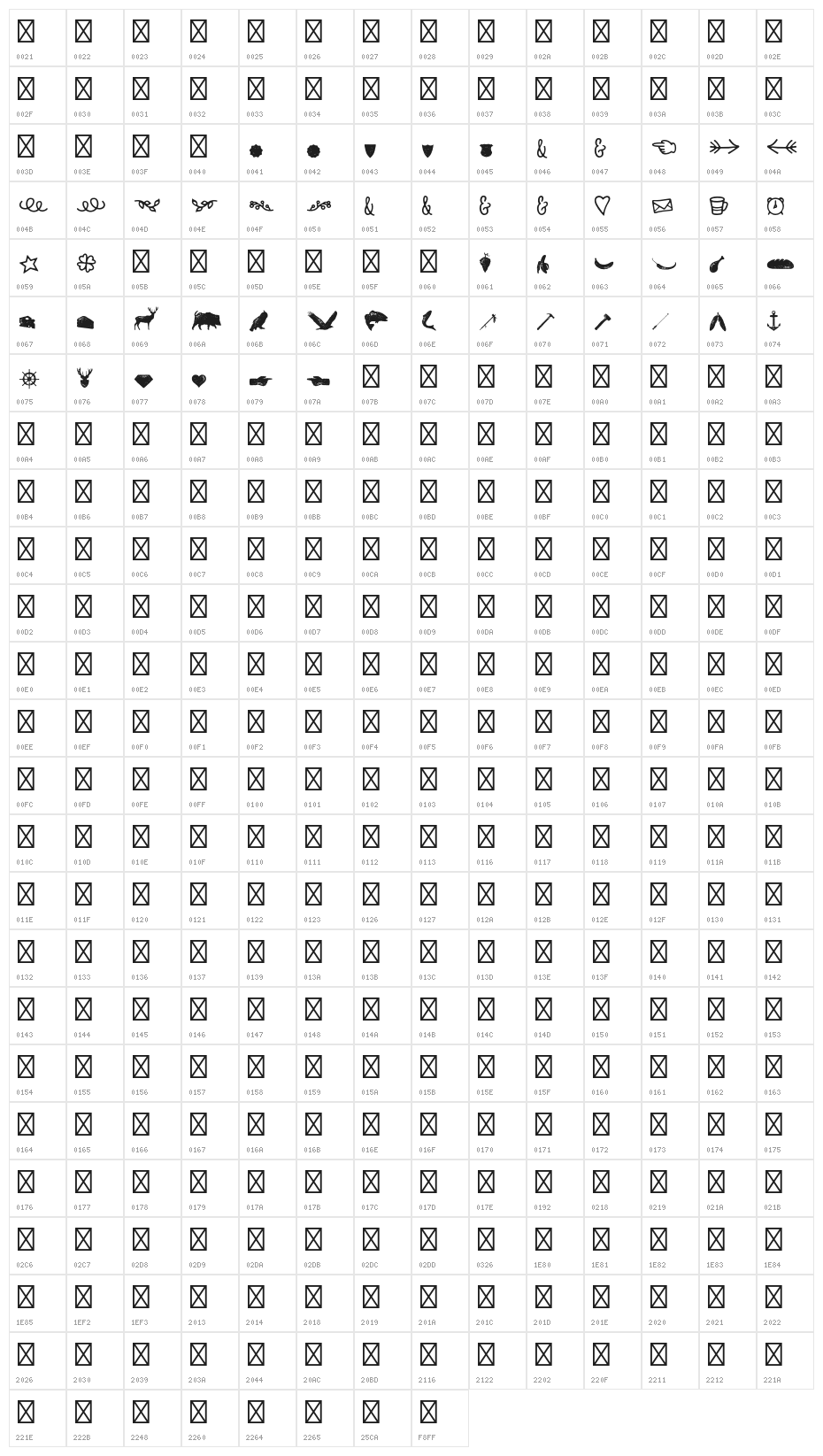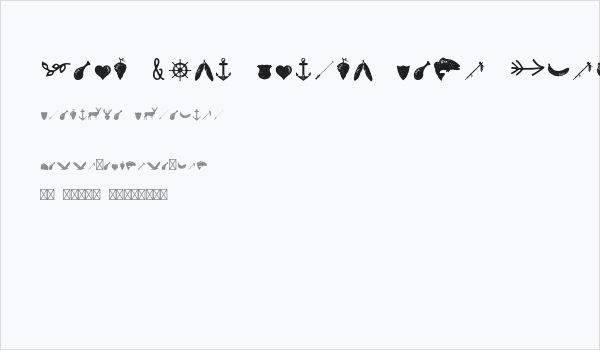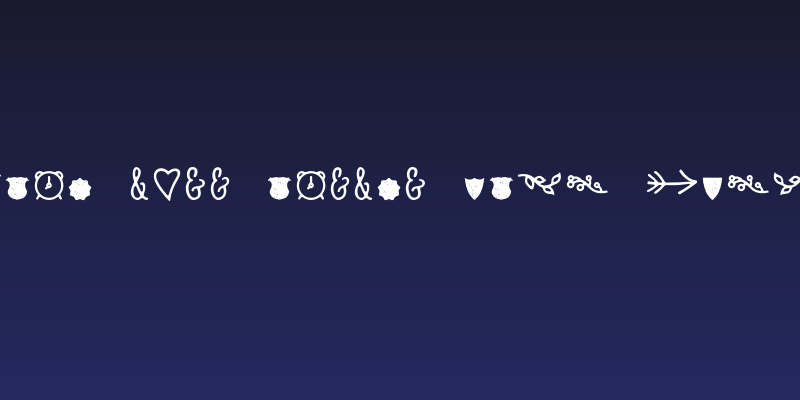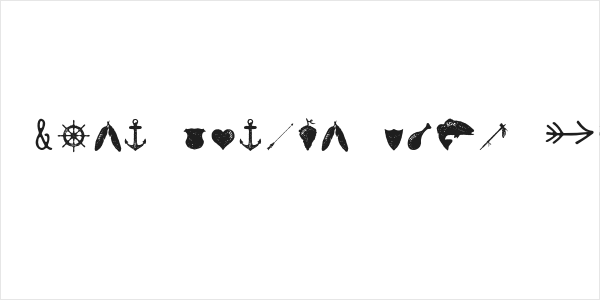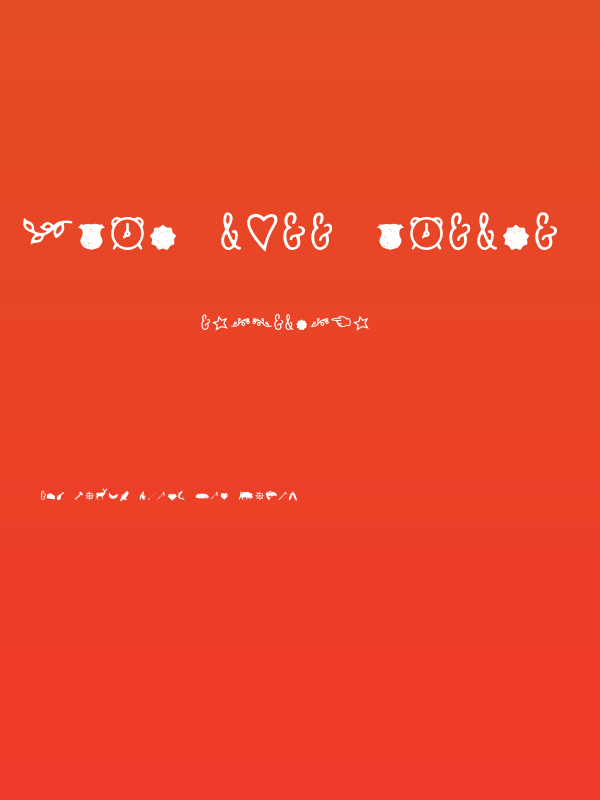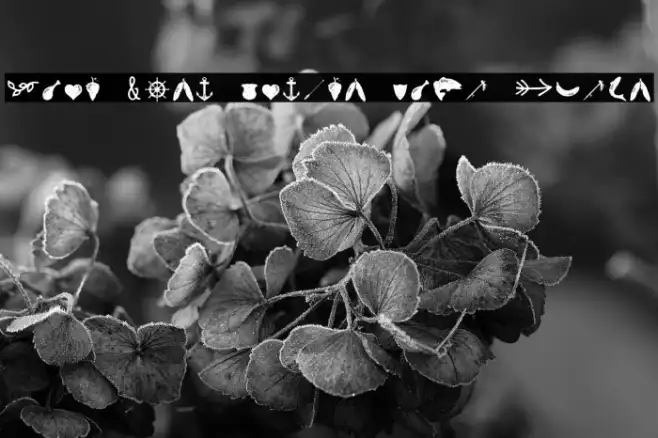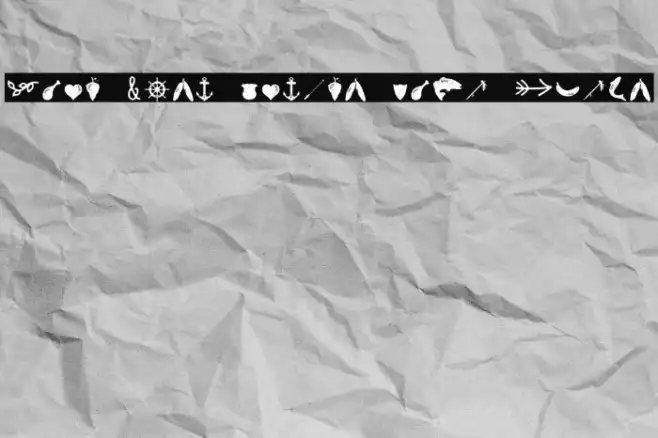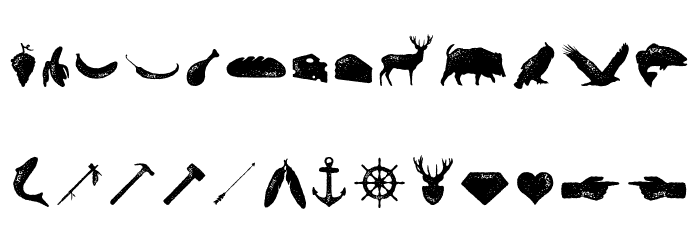
Nexa Rust Extras Demo Icons Font
Nexa Rust Extras Demo Icons Description
This collection features a diverse array of decorative icons and symbols, each with a rustic and handcrafted appearance. The icons include various shapes such as shields, arrows, hands, and whimsical swirls, alongside more thematic elements like animals, food items, and nautical symbols. The style is distinctly vintage, with a textured, worn look that adds character and charm. These icons are ideal for adding a touch of personality and flair to design projects, particularly those that aim to evoke a sense of nostalgia or artisanal craftsmanship.
| Use Case | Logos, Decorative elements, Branding |
| Proposed Projects | Ideal for branding, packaging, posters, and any design project seeking a vintage or handcrafted aesthetic. |